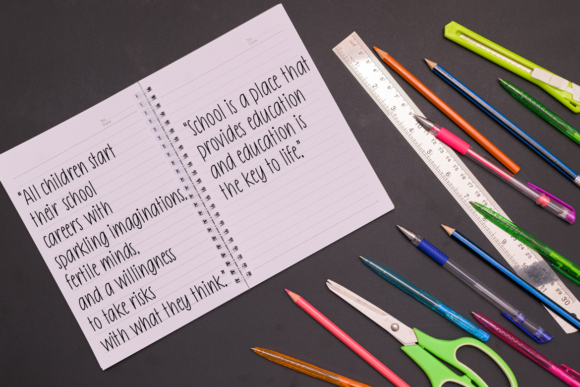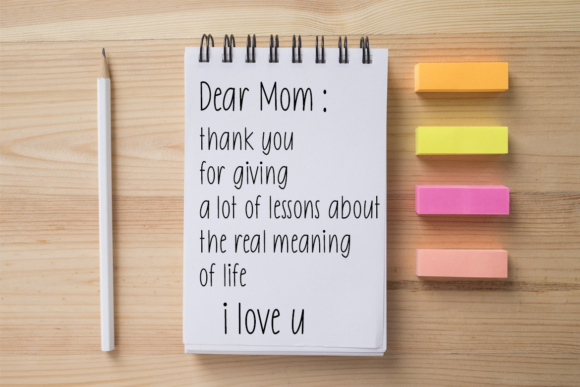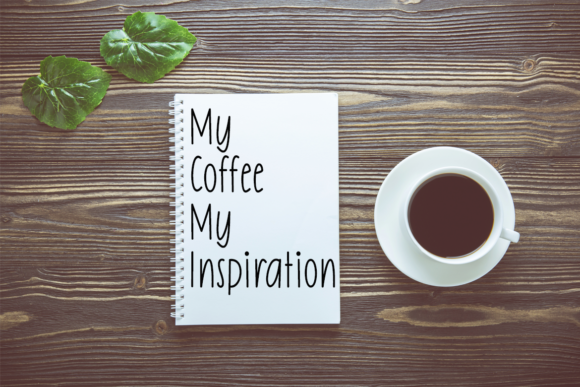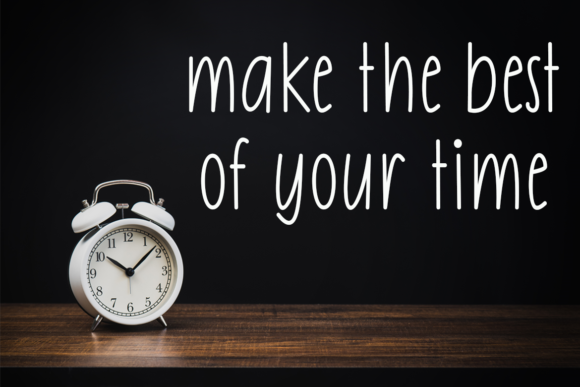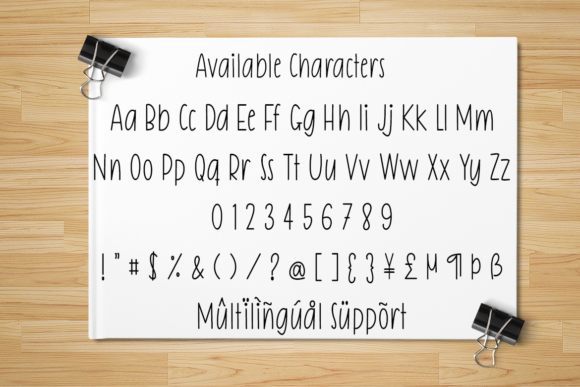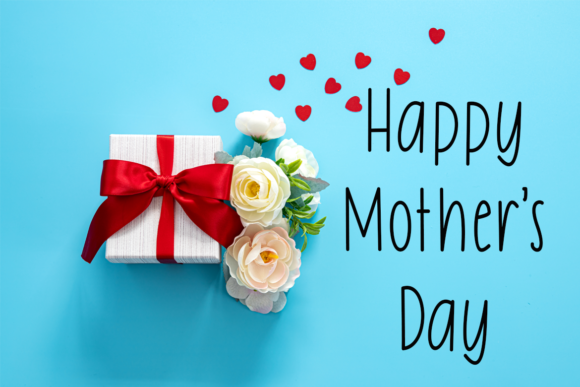
Introduction to School Diary Font
School Diary is a classic handwritten font.
This versatile font has a wide range of applications ranging from greeting cards to kids’ crafts, and is guaranteed to add a sweet touch to your next design .
Key Features of School Diary Font